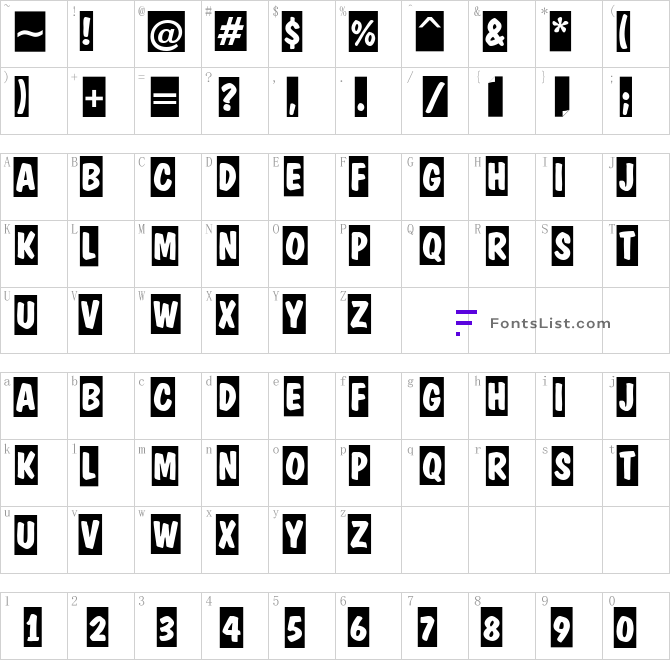
a_DomInoTitulSl-Bold.ttf is a very beautiful artistic font, a_DomInoTitulSl-Bold.ttf is widely used in the design and printing of various books and pictures,a_DomInoTitulSl-Bold.ttf has a strong visual impact,a_DomInoTitulSl-Bold.ttf is a commonly used font in newspapers, magazines and books, and is used in posters, e-commerce Poster design, store design, logo design, font design and other fields.a_DomInoTitulSl-Bold.